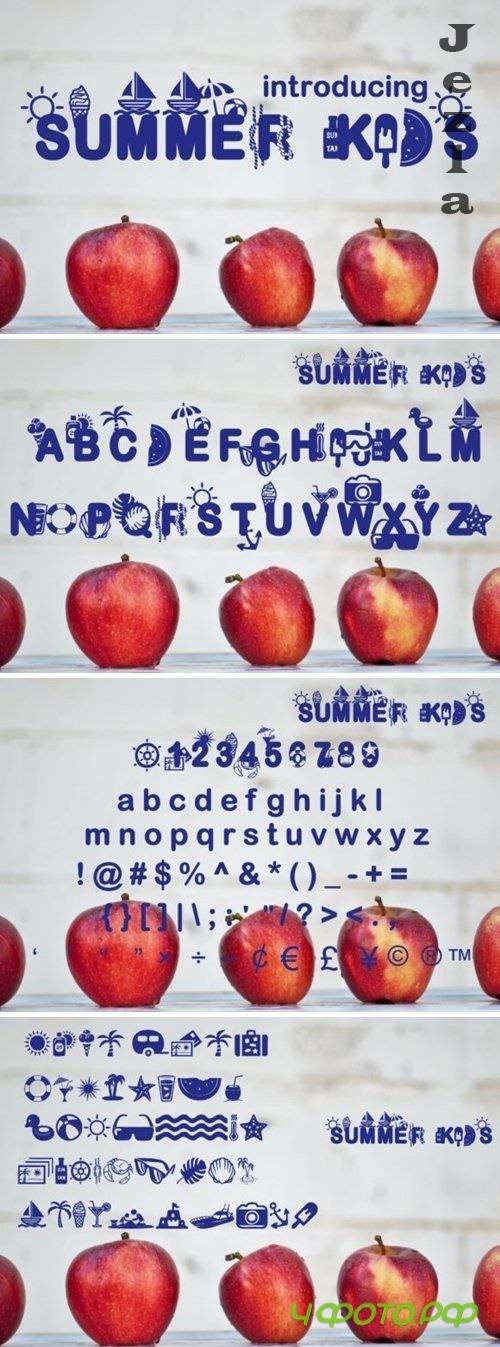
Summer Kids Font
Summer Kids is a cute and casual display font with an incredibly friendly feel. This font will appeal to a wide range of crafty ideas, from letterheads and titles, to stationery.